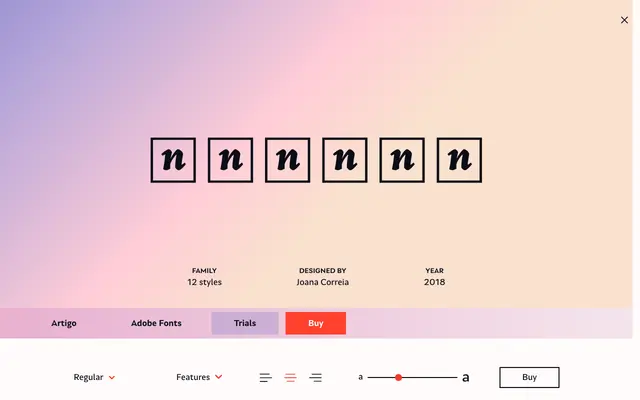
Artigo
Nova Type Foundry · Joana Correia · 2018
A contemporary old-style text serif by Joana Correia, originating from the MA Typeface Design programme at the University of Reading, with strong calligraphic italics and coverage across Latin, Cyrillic and Greek.
Rooted in the handwriting qualities of early roman types, Artigo is built for small text where personality matters. Six weights from Light to Extrabold each carry matching italics that grow progressively more expressive, with the display version leaning furthest toward the handwritten. The Greek extension won second prize at the Granshan Awards in 2011, and the family now covers an extensive range of Latin languages alongside Cyrillic.
Artigo draws directly from the humanist roman tradition, taking cues from the handwriting qualities of early renaissance typefaces. Its italics lean noticeably calligraphic, placing it firmly in the old-style category.